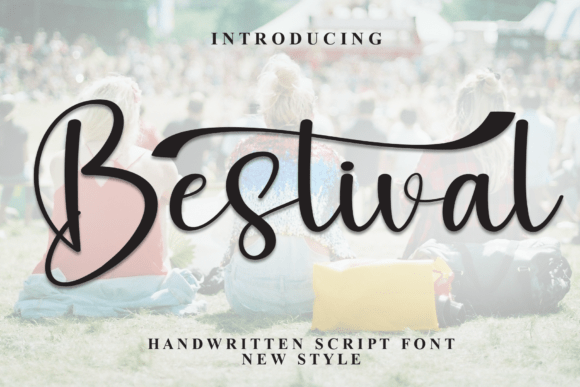
Have you ever stared at a blank page, struggling to find the perfect font to capture the essence of your creative project? The blank page stares back, taunting you to come up with something truly special. That’s when you stumble upon the perfect combination of elegance and playfulness – the perfect recipe for a design that truly stands out.
Meet the Bestival Font, a stylish handwritten script that effortlessly blends modern sophistication with a charming, whimsical touch. This versatile font is perfect for designers looking to add a personal feel to their logos, packaging, and invitations. Its fluid strokes and curves bring a warmth and creativity to every project, making it a valuable asset for any designer looking to elevate their work.
Bestival Font Key Features
- Unique Characteristics: Features a playful, cursive script with a mix of rounded and angular shapes, creating a unique aesthetic.
- Kerning and Ligatures: Includes advanced kerning and ligature pairs, ensuring smooth text rendering and a professional appearance.
Bestival Font Review
Overall, I was excited to dive into the Bestival Font, especially given its association with the iconic music festival. Here’s my honest take:
- Unique Blend: The Bestival Font seamlessly combines bold, playful, and quirky elements, making it perfect for music and art-related projects.
- Legibility: Despite its unconventional design, the font remains highly legible, especially at larger sizes.
- Emotional Connection: The font effectively captures the carefree, energetic atmosphere of the Bestival festival.
- Overuse Potential: The Bestival Font’s playful nature might lead to overuse in designs, resulting in a lack of sophistication.
- Readability at Smaller Sizes: While legible at larger sizes, the font may become harder to read at smaller sizes due to its unconventional design.
- Limited Versatility: The font’s unique style might limit its use in more formal or corporate designs.
In conclusion, the Bestival Font is a great choice for music, art, and creative projects that require a bold, playful touch. However, it may not be the best fit for more formal or corporate designs due to its limitations.
Tips for Getting the Most Out of Bestival Font
Use Bestival Font for creative and playful designs, such as music festival branding, event invitations, and social media graphics.
Experiment with different font sizes and colors to create visually appealing effects.
Pair Bestival Font with other creative fonts to add depth and personality to your designs.
Bestival Font is ideal for:
Music festival branding and marketing materials
Event invitations and promotional materials
Social media graphics and online advertising
Playful and creative designs, such as blog posts and editorial content